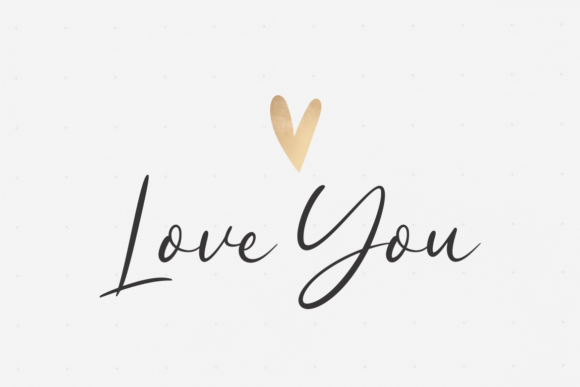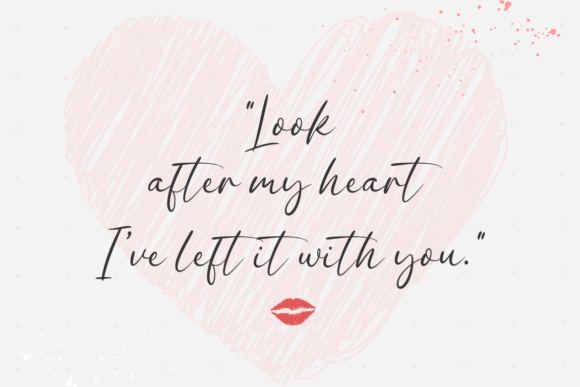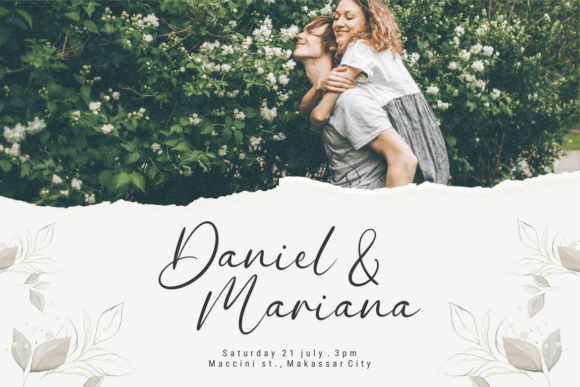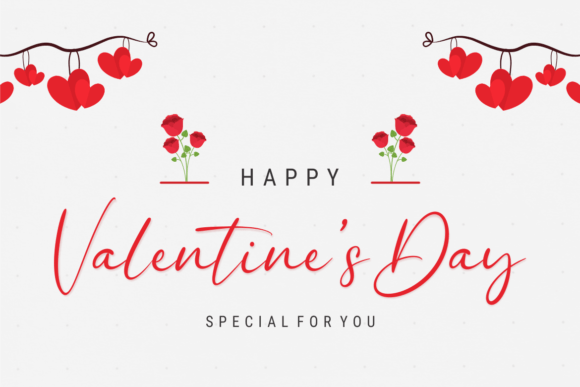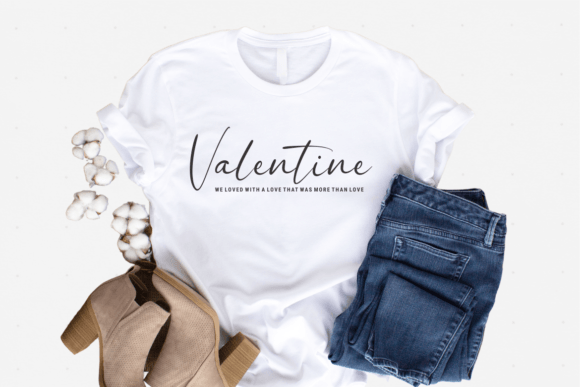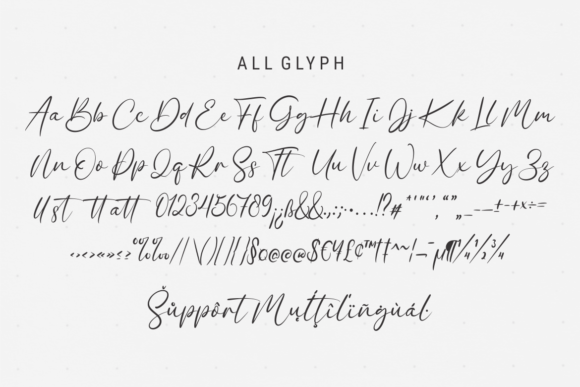
Introduction to Chillatos Font
Chillatos is a delicate, simple, and stylish handwritten font.
This graceful font has a wide spectrum of applications ranging from greeting cards to headlines and is guaranteed to add a romantic feel to your next project .